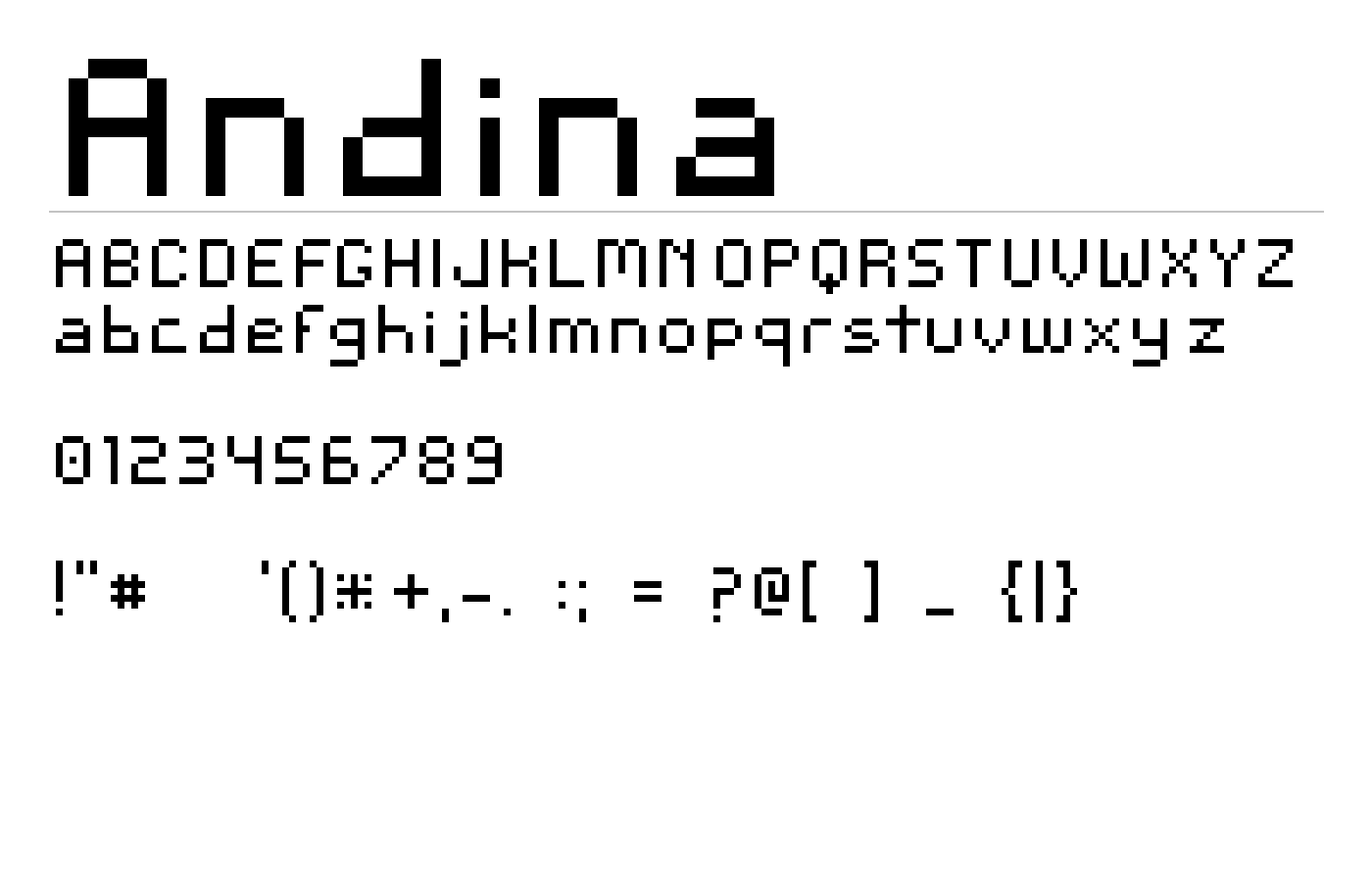
Andina is a pixel-style sans serif font with a clean, monospaced structure and a retro, digital aesthetic. Its blocky, geometric letterforms with consistent stroke weight create a strong, tech-inspired feel, making it perfect for use in video games, coding interfaces, or any design aiming for a nostalgic yet modern digital look. This font works best in headlines, logos, and creative projects where a bold, pixelated character is desired.
Andina Font
About Andina Font
| Designer | Federico Abuyé |